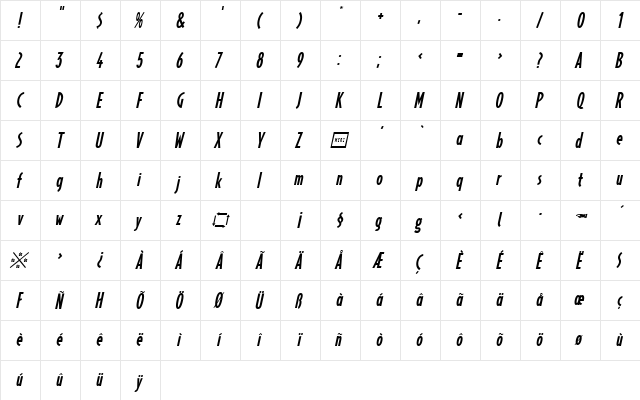
MerzKursiv Regular
Design Context for MerzKursiv Typeface
MerzKursiv is a composed and adaptable typeface that performs quietly and consistently across a wide range of design contexts. The dynamic lean of this cut emphasises speed and emphasis in any layout.
Pro Tip: Try MerzKursiv for annotation and caption copy alongside an upright companion — the contrast in angle creates a dynamic but ordered typographic system.